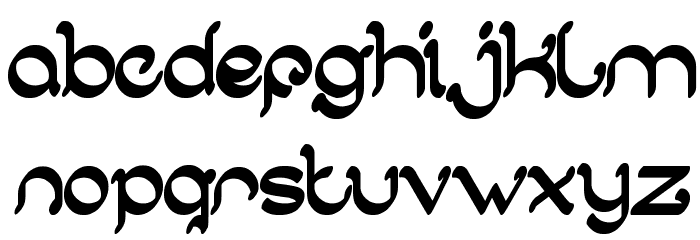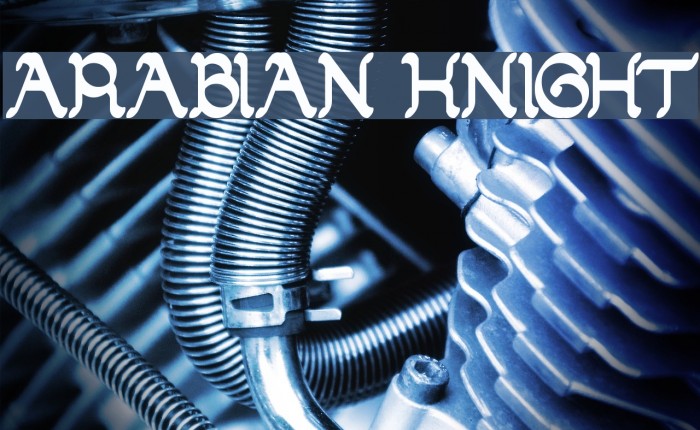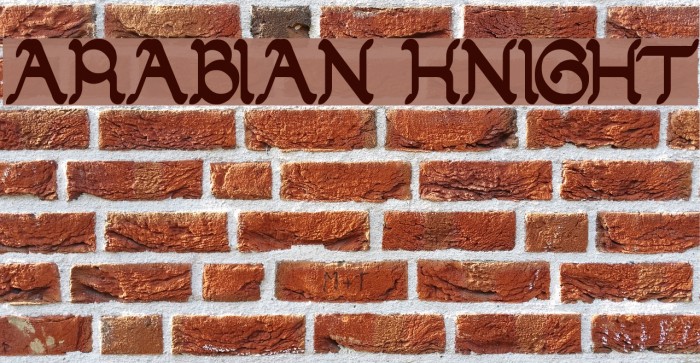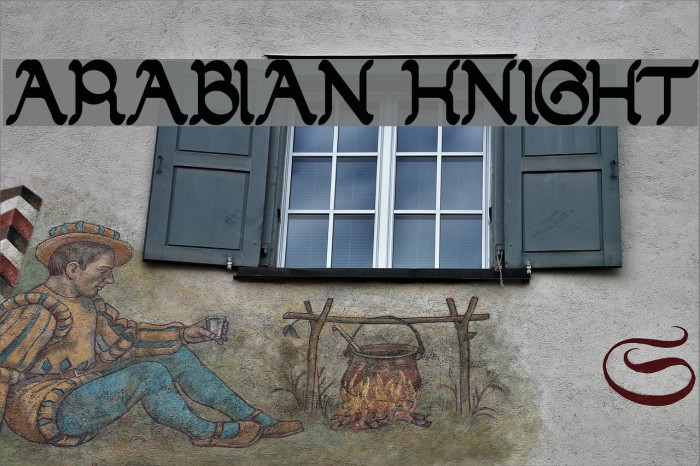
ARABIAN KNIGHT Font
This font features a unique and decorative style with intricate curves and flourishes that give it an exotic and ornamental appearance. The uppercase letters are bold and striking, with a consistent thickness throughout, while the lowercase letters maintain a similar style with slightly more subtle embellishments. The numbers and special characters are designed to match the overall aesthetic, ensuring a cohesive look across all text. The font's design is reminiscent of traditional calligraphy, with a modern twist that makes it suitable for various creative applications.
A decorative font with intricate curves and a calligraphic style.
- Proposed Projects: Ideal for use in branding, invitations, posters, and any project requiring a touch of elegance and flair.
- Use Case: Logos, Headlines, Invitations